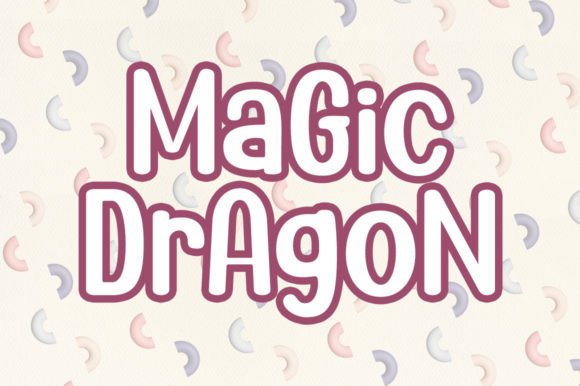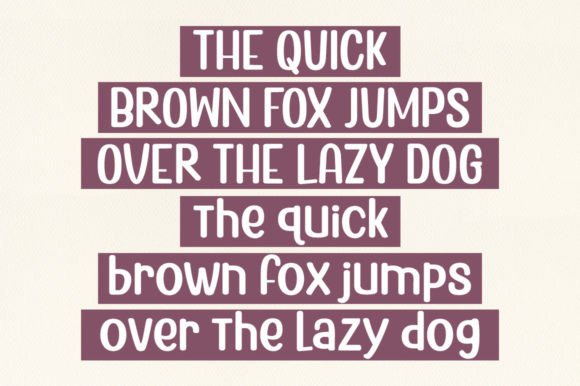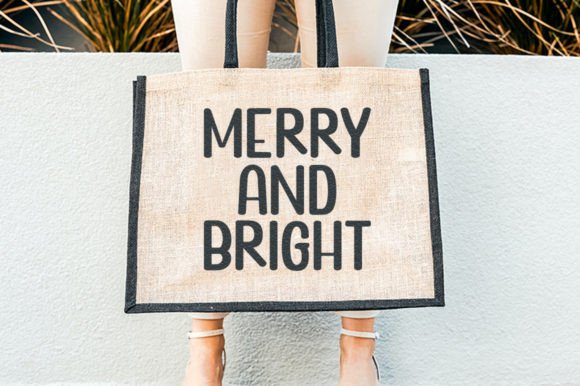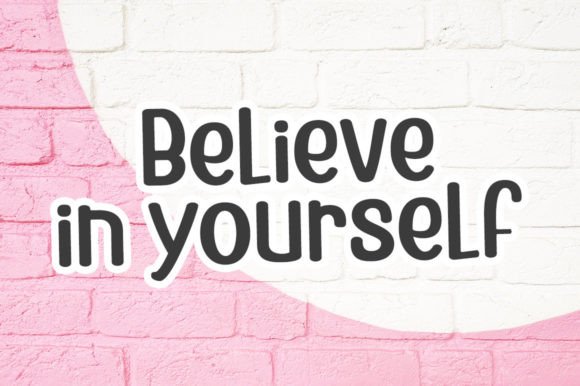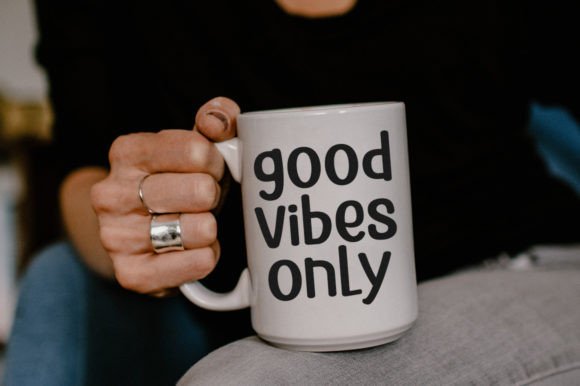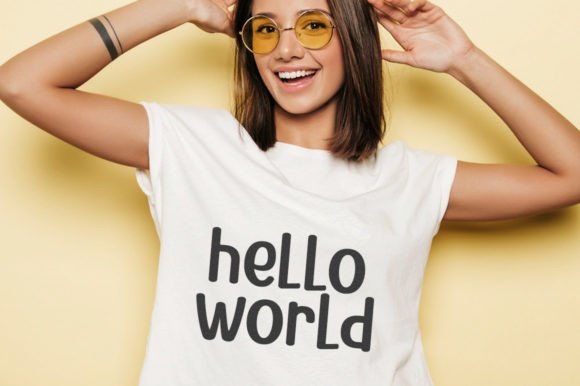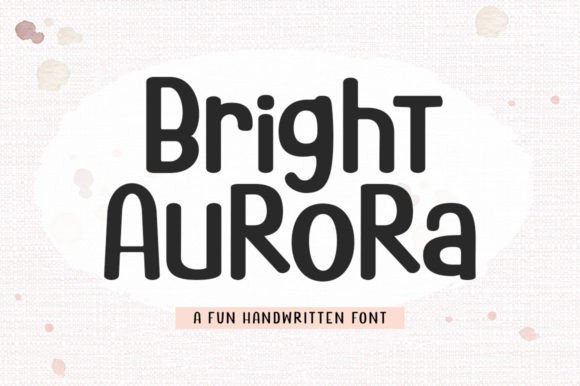
The Magical World of Bright Aurora Font
I’ll never forget the time I was working on a whimsical design project for a children’s book, and I just couldn’t find the perfect font to bring the story to life. The client wanted something playful, yet elegant, and I was on a mission to deliver. That’s when I stumbled upon Bright Aurora Font, a lovely and cute handwritten display font that has since become a staple in my design toolkit.
A Personal Review of Bright Aurora Font
So, what makes Bright Aurora Font so special? Here’s what I love about it:
- ✨ Quirky characters: Each letter is uniquely designed with a whimsical touch, making it perfect for adding a dash of personality to your designs.
- ✅ Elegant yet playful: Bright Aurora Font strikes the perfect balance between elegance and playfulness, making it suitable for a wide range of design projects.
- 💫 Highly versatile: Whether you’re designing a children’s book, a greeting card, or a social media graphic, Bright Aurora Font adapts seamlessly to different contexts.
Of course, no font is perfect, and Bright Aurora Font has a few minor quirks:
- 🤔 Limited suitability for body text: Due to its decorative nature, Bright Aurora Font is best used for headlines, titles, or short paragraphs. For longer texts, a more traditional font might be more suitable.
- ⚠️ Occasional kerning issues: As with any font, you might encounter some kerning issues, especially when pairing Bright Aurora Font with other fonts. However, these can usually be easily adjusted in your design software.
- Explore the font’s OpenType features, such as ligatures and swashes, to add a touch of elegance to your designs.
- Use the font’s built-in glyphs and stylistic alternates to add some visual interest to your documents.
The Story Behind Bright Aurora Font
Bright Aurora Font was designed by a talented type designer who wanted to capture the magic of the aurora borealis in a font. Inspired by the whimsical and dreamy quality of the natural phenomenon, the designer created a font that would bring a touch of wonder to any design project.
| Font Name | Bright Aurora Font |
| Author | Megatype |
| What type of projects is Bright Aurora Font best suited for? | Bright Aurora Font is perfect for creative projects that require a playful, yet elegant touch, such as children’s books, greeting cards, or social media graphics. |
| Is Bright Aurora Font available in different weights or styles? | Currently, Bright Aurora Font is available in a single weight. However, the designer may release additional weights or styles in the future. |